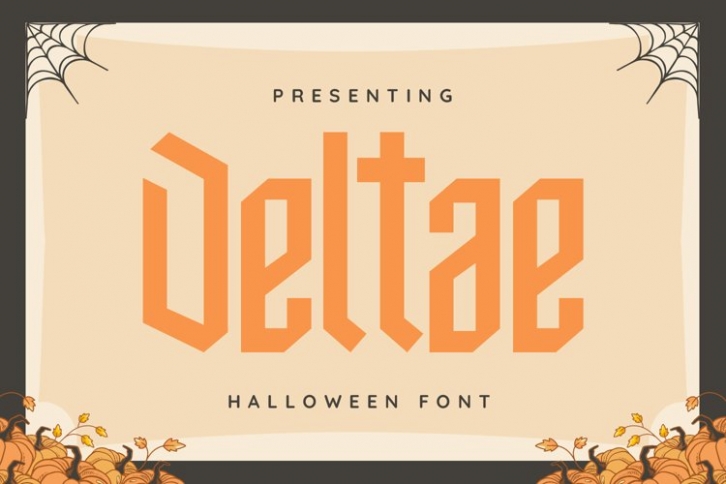
Deltae is a gorgeous font that was realeased on October 10, 2021. The font can be used in many style contexts and design environments. Perfect for invitations, magazines, websites, logos, and more! It was designed by plusstore and the file size is 16.68 MB. Thanks for checking out this font!